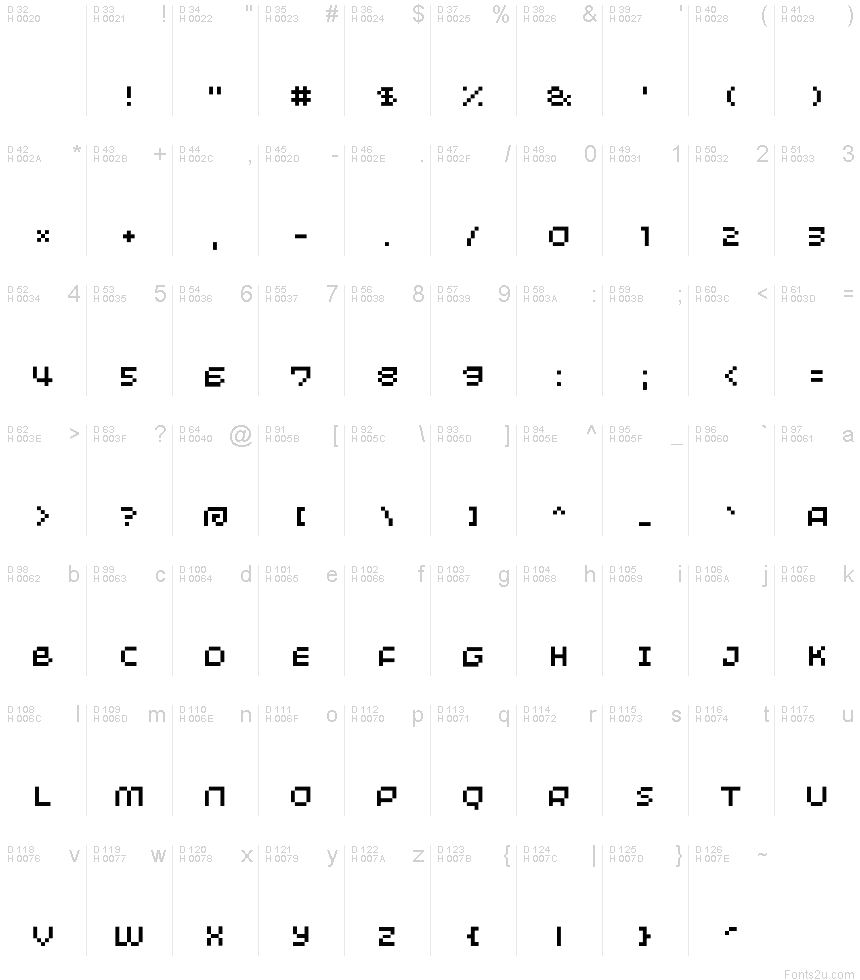
Minimum
Minimum by CLOPS is a free bitmap font whose rhythm comes from blunt square modules and narrow vertical cuts that keep the lettering crisp and mechanical. The repeated pixel grid gives it a stripped-down, low-resolution texture, and that restraint is what makes the design feel deliberate instead of merely rough.
It makes sense on game menus, splash screens, tiny posters, interface labels, and coding-themed graphics where that blocky cadence feels native to the layout. Because the forms stay so reduced and evenly stepped, Minimum can also sharpen logos or section headers that need a clear digital stamp without drifting into ornate sci-fi styling.